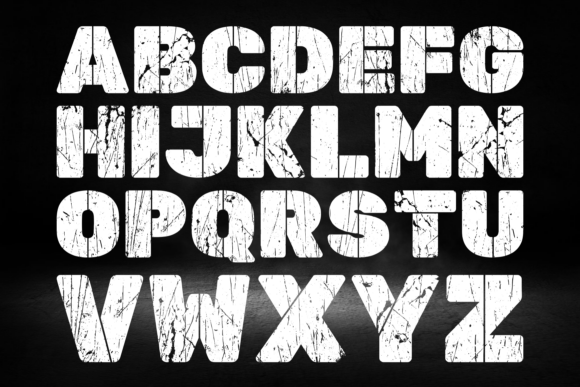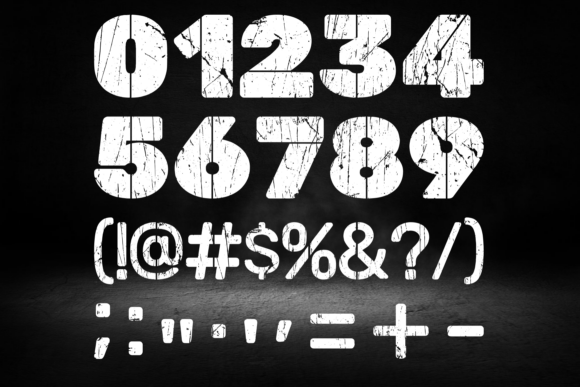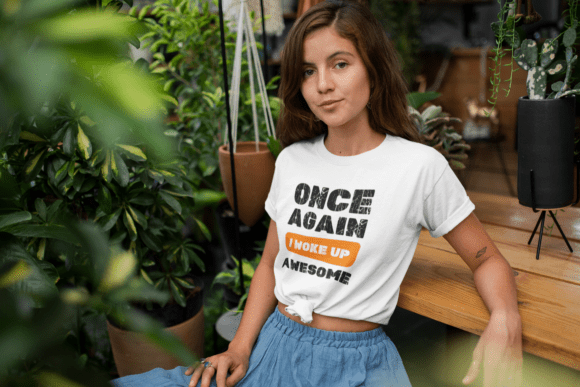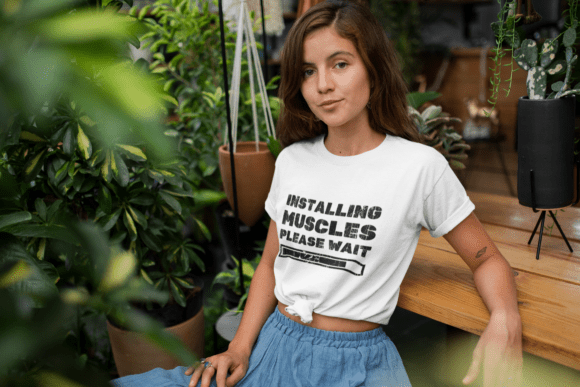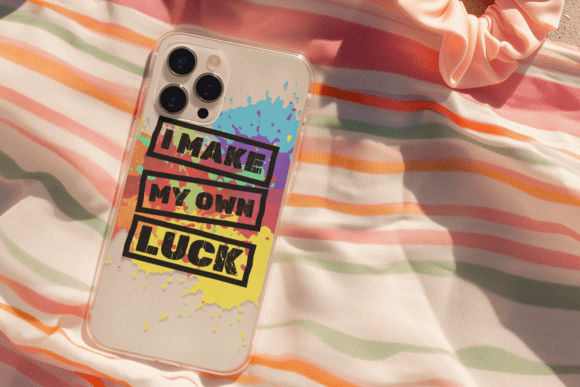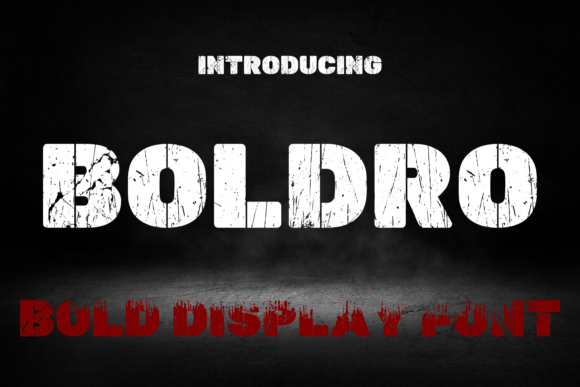
Unleash the Power of Boldro Font: A Stencil-Inspired Masterpiece
In the world of typography, a font can make or break a design. It can elevate your creative project from mundane to mesmerizing, or leave it lost in a sea of blandness. If you’re on the hunt for a font that exudes raw power, commanding attention, and industrial charm, look no further than Boldro Font. This stencil-inspired design is a game-changer, harnessing the rugged allure of a factory floor to bring a bold audacity to your designs.
The Industrial Aesthetic
Boldro Font is more than just a font – it’s an experience. Its distressed texture and stencil-inspired design evoke the grit and grind of an industrial setting, transporting your audience to a world of raw energy and unrefined aesthetics. The rugged, sturdy feel of the font is reminiscent of a factory floor, where functionality meets form in a beautiful display of industrial design. With Boldro Font, you can bring this aesthetic to your designs, infusing them with a sense of power and resilience.
Authenticity Through Imperfection
One of the most striking features of Boldro Font is its distressed texture. The raw imperfections that come with this texture imbue the font with a sense of authenticity, as if it’s been plucked straight from the factory floor. This is a font that doesn’t shy away from its industrial roots; instead, it celebrates them. The imperfections are a testament to the font’s rugged charm, making it the perfect choice for designers who want to add a touch of grit to their work.
Unrestrained Vitality
When you use Boldro Font in your designs, you can expect a wild energy to burst forth. The font’s unrefined aesthetics release a vitality that’s hard to ignore, invigorating your creative landscape with a sense of unrestrained power. Whether you’re working on a branding project, a website, or a marketing campaign, Boldro Font is the perfect choice for designers who want to make a statement.
Versatility Unleashed
Boldro Font is more than just a display font – it’s a versatile tool that can be used in a variety of creative projects. From bold headlines to striking titles, this font can be used to add a touch of industrial chic to your designs. Its distressed texture and stencil-inspired design make it perfect for:
- Branding projects that require a bold, attention-grabbing font
- Websites that need a font that can withstand the test of time
- Marketing campaigns that demand a font with a strong, industrial aesthetic
- Packaging designs that require a bold, eye-catching font
Why Choose Boldro Font?
So why choose Boldro Font over other fonts on the market? Here are just a few reasons:
- Unique aesthetic: Boldro Font’s industrial charm and distressed texture set it apart from other fonts.
- Versatility: This font can be used in a variety of creative projects, from branding to packaging design.
- Attention-grabbing: Boldro Font is designed to command attention, making it perfect for headlines and titles.
- Authenticity: The font’s distressed texture and stencil-inspired design give it a sense of authenticity that’s hard to replicate.
In conclusion, Boldro Font is a stencil-inspired masterpiece that’s sure to unleash the bold audacity of raw power in your designs. With its industrial aesthetic, distressed texture, and unrestrained vitality, this font is perfect for designers who want to add a touch of grit to their work. Whether you’re working on a branding project, a website, or a marketing campaign, Boldro Font is the perfect choice for those who want to make a statement. So why wait? Immerse your content in the resonating energy of Boldro Font and watch your designs come to life.